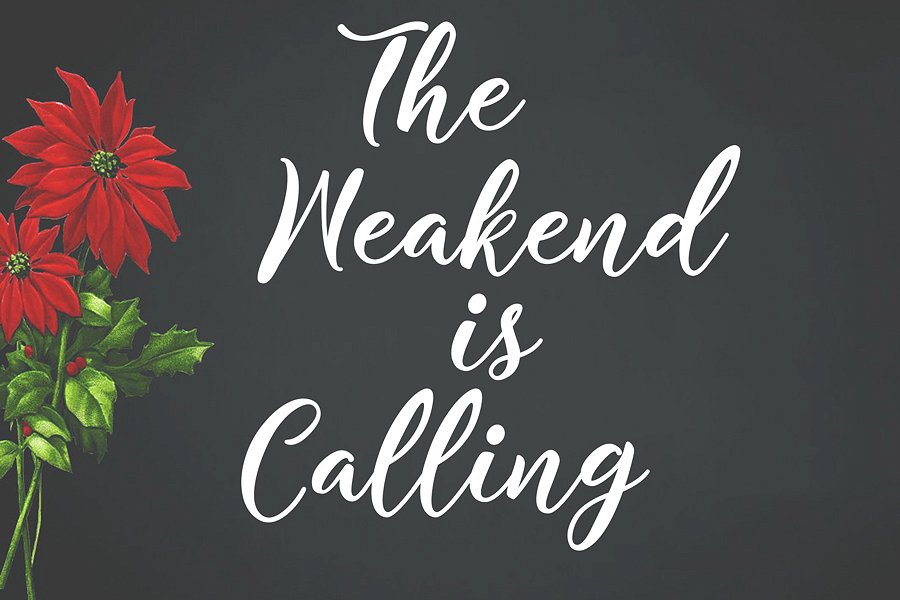
Awasome Restaurant Fonts 2022
Awasome Restaurant Fonts 2022. Examples of fonts in use in the set “restaurant. 45 professional restaurant fonts to download please note:
If you want to create professional printout, you should consider a commercial font. To learn more about the font and typography of the restaurant font, simply enter the text in the field below and click generate. To create the perfect mix of fonts in your restaurant menu, use the heavier weights of this typeface as headings and pair it with a thin (yet still legible!) sans serif font.
Designed by steve matteson of ascender corp, google fonts' open sans is a neutral yet friendly font that's all about the legibility; Helvetica is known for its safe, neutral, accessible style, making your menu inclusive to all audiences. Click to find the best 36 free fonts in the restaurant menu style.
On A Menu It'll Say That This Is A Welcoming.
To learn more about the font and typography of the restaurant font, simply enter the text in the field below and click generate. This font are perfect for wedding postcard, restaurant and cafe menu. Examples of fonts in use in the set “restaurant.
Looking For Fancy Restaurant Fonts?
Every font is free to download! It is a script font, with a. Are you looking for the.